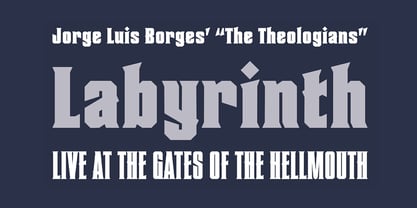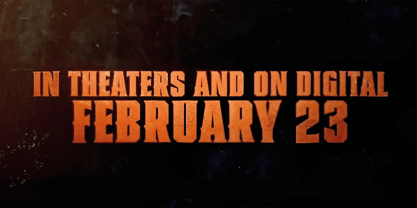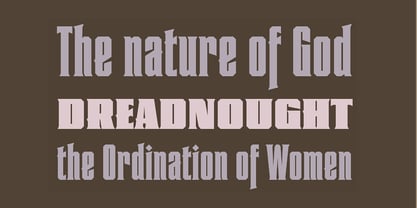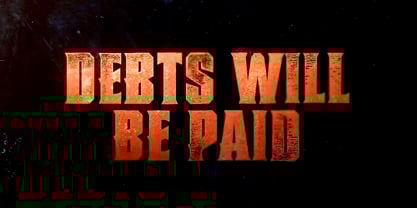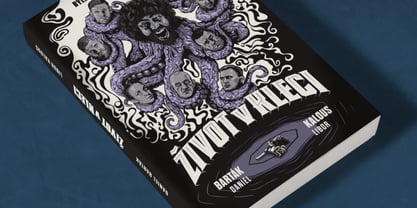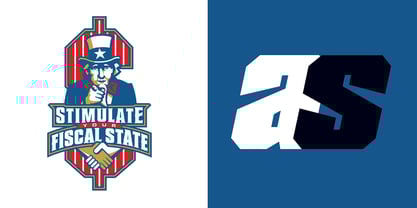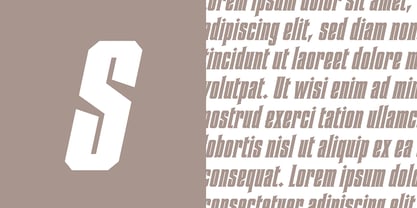
Heretic
Die Schriftfamilie Heretic wurde von Rian Hughes entworfen und von Device veröffentlicht. Heretic enthält 6 Stile und Familienpaketoptionen.
Heretic surrounds itself with an atmosphere of evil, carnival freakshow and no-nonsense thuggery. Mix the black and condensed weights of this octagonal blackletter together for more interesting, yet disconcerting results.